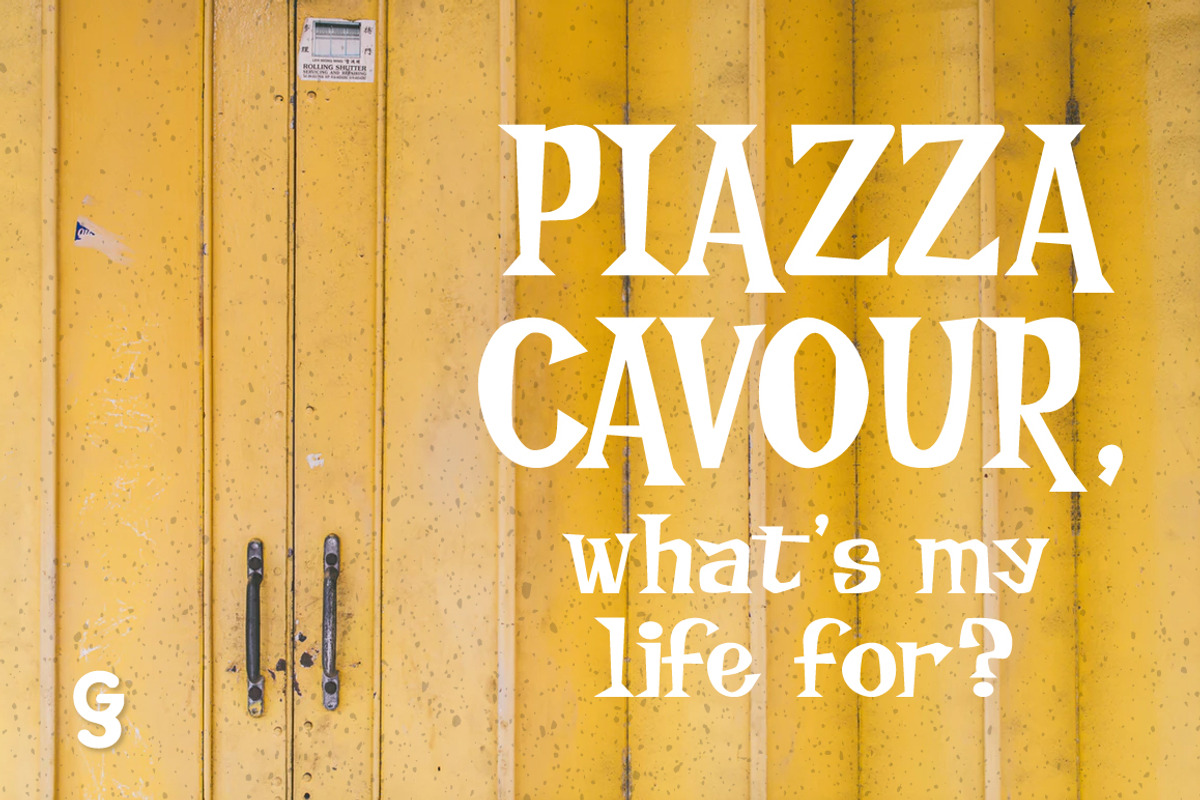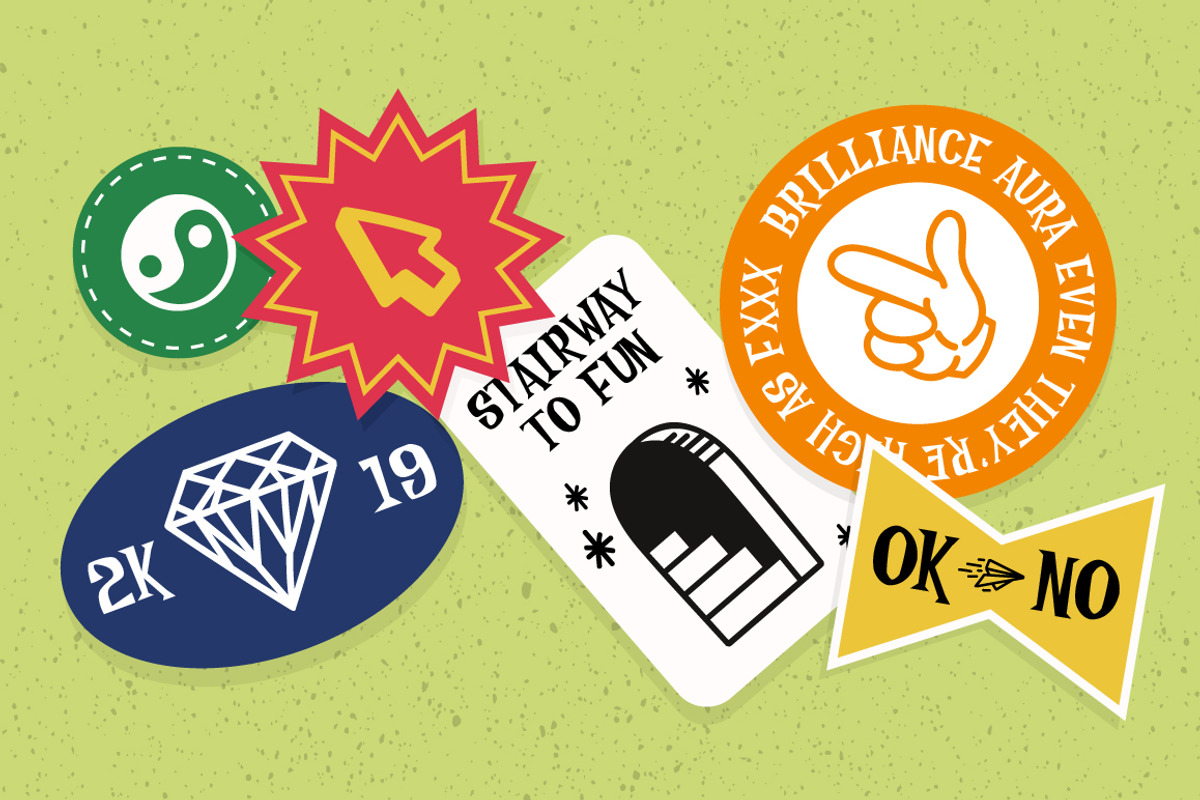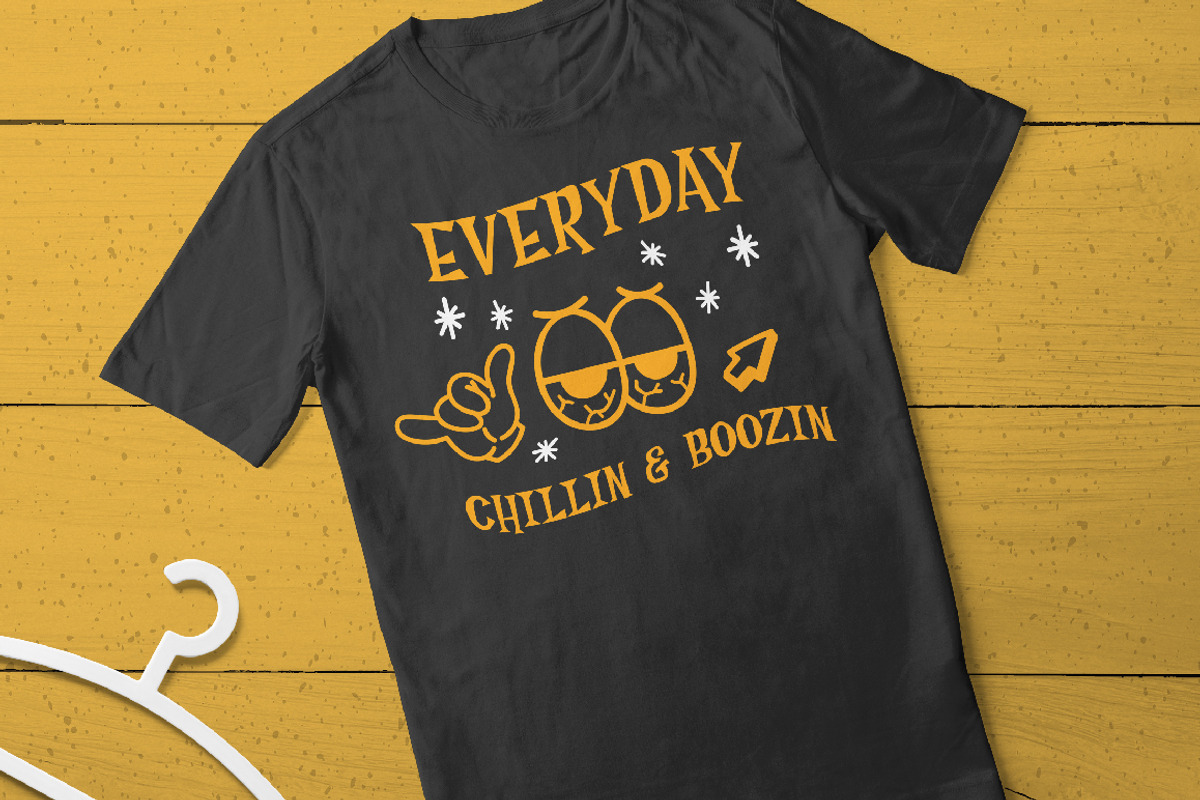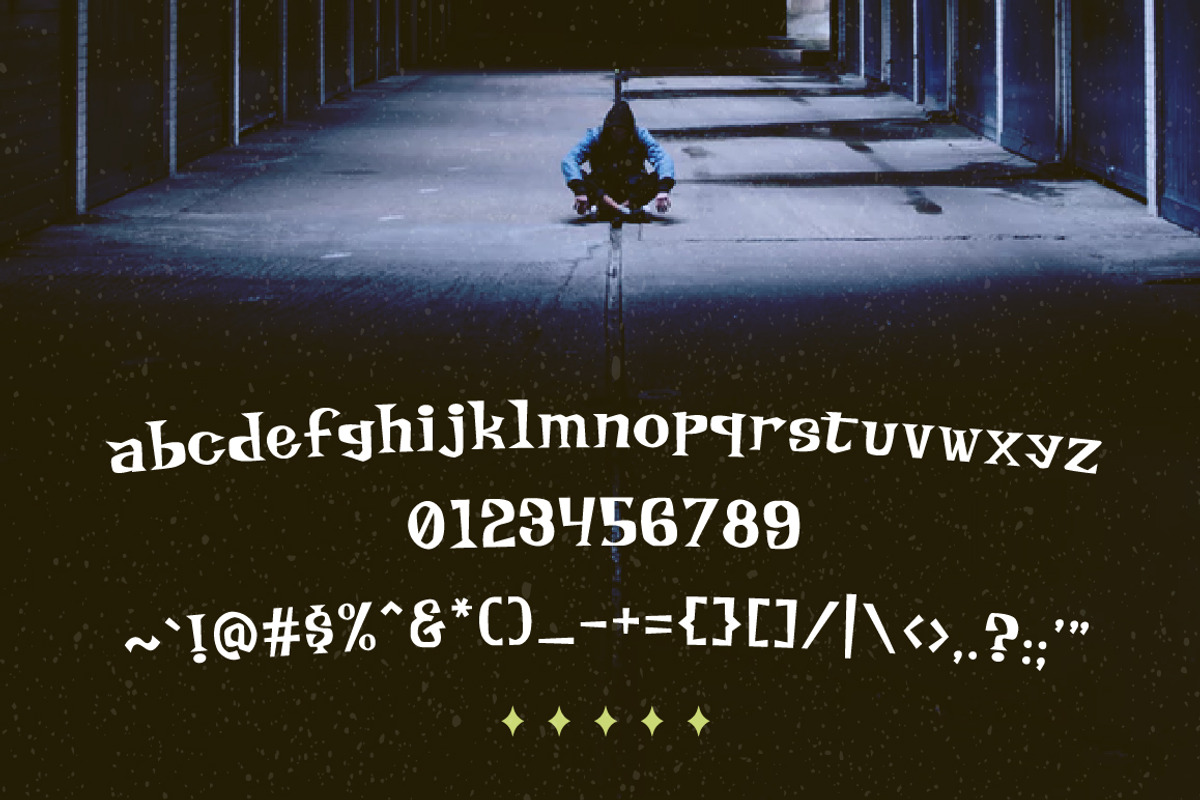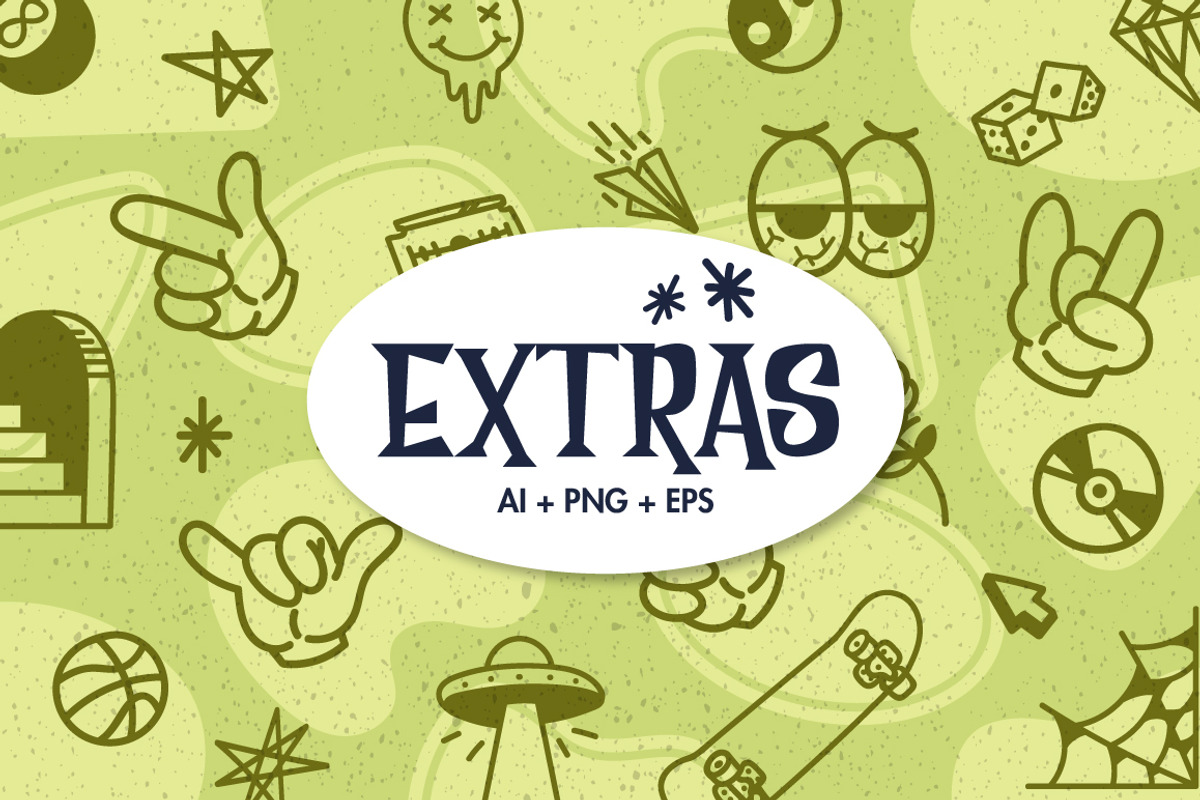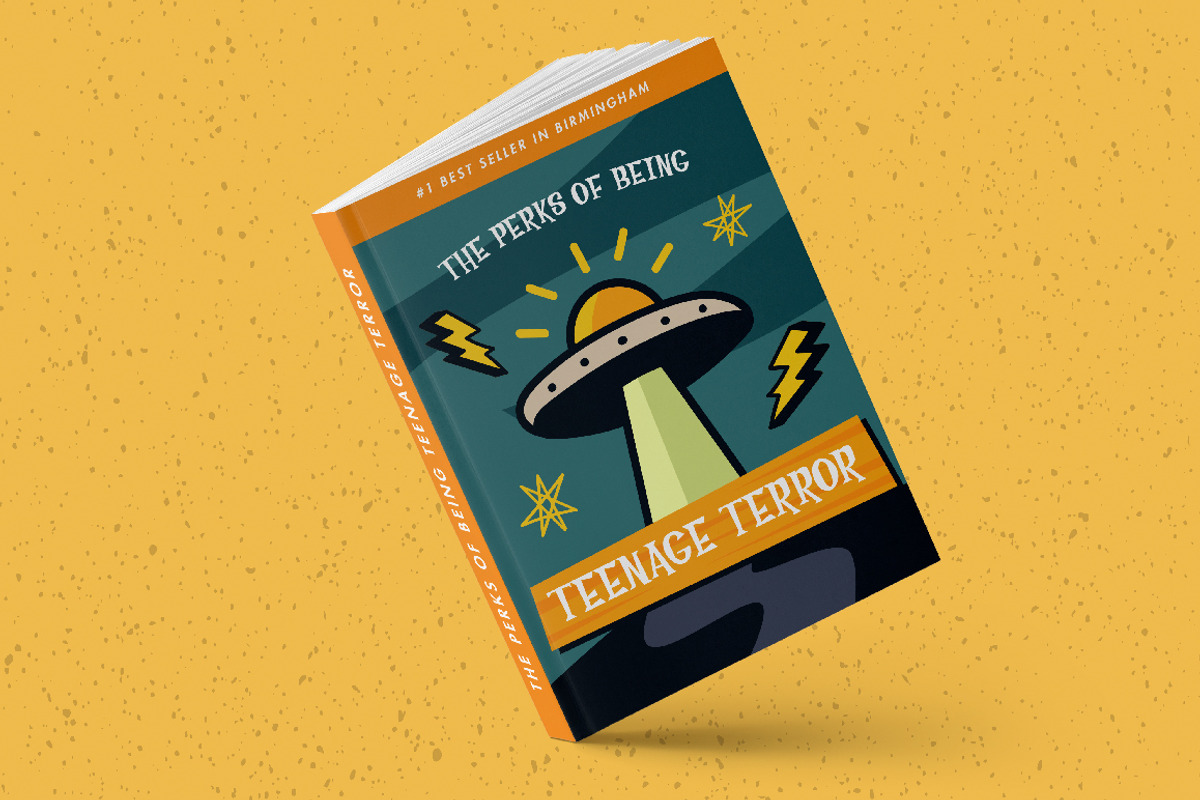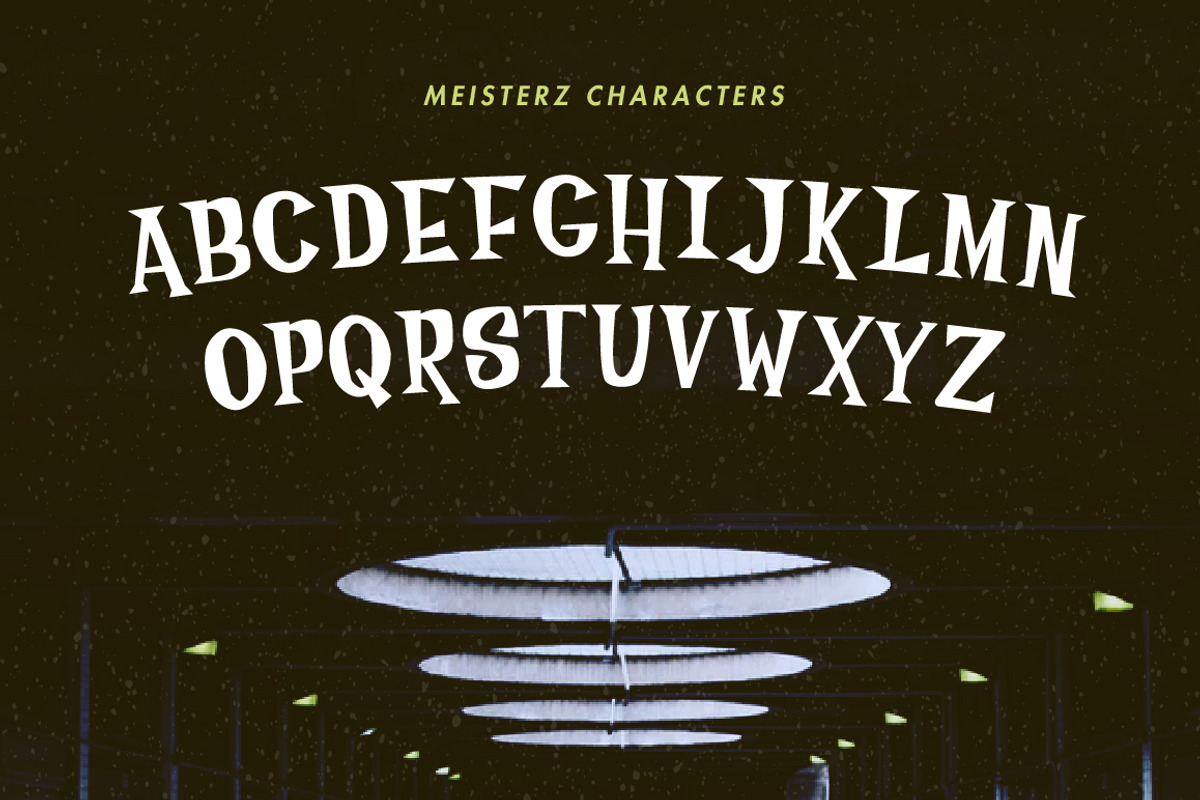
Meisterz Typeface
Meisterz Typeface is an typeface that mixin' between horror & fancy theme. Sometimes it can feel spooky but fancy at the same time. The typeface inspired by retro horror comic with lil touch from reinassance era and so the final result is fancy retro.
Meisterz Typeface is absolutely perfect for headings, Logo type, quotes, apparel design, invitations, flyer, poster, greeting cards, product packaging, book cover, printed quotes, cover album, movie, etc